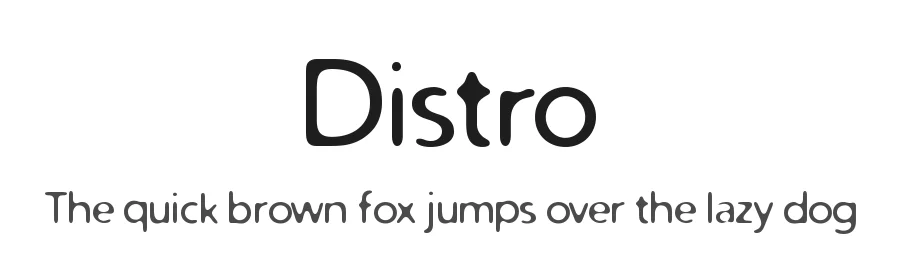
About Distro II Font
Distro II is a decorative font designed by Peter A. It includes 228 glyphs, a regular weight, TTF (TrueType) format, and 217 languages. Distro II is free to download; check the license details on this page before commercial use. Decorative fonts like Distro II work best for logos, posters, packaging, and standout headlines.
Distro II Font is a decorative font that shines as a display or heading face. Pair it with a clean sans-serif or serif font for body text β the contrast creates a clear hierarchy while the two styles stay balanced and easy to read.
Distro II Font is a decorative typeface by Peter A, ideal for logos, invitations, branding, and creative projects.